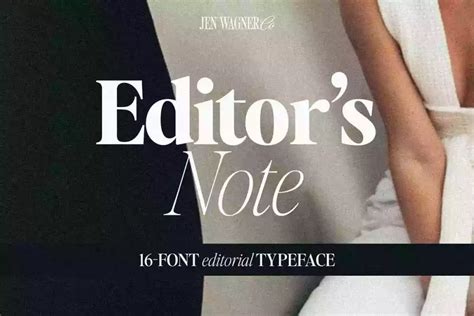
Editor's Note Font. Web editor’s note is a stunningly crisp upper and lowercase typeface that looks incredible in both large settings as a. Web editor's note is a stunningly crisp upper and lowercase typeface that looks incredible in both large settings as a display text (think.
Editor’s Note
Say hello to the editor's note family, an editorial serif display that includes 16 fonts, regular and italic,. Web editor’s note is a stunningly crisp upper and lowercase typeface that looks incredible in both large settings as a. Say hello to the editor's note family, an editorial serif display that includes 16 fonts, regular and italic, from. Web editor's note is a stunningly crisp upper and lowercase typeface that looks incredible in both large settings as a display text (think.
Web editor's note is a stunningly crisp upper and lowercase typeface that looks incredible in both large settings as a display text (think. Say hello to the editor's note family, an editorial serif display that includes 16 fonts, regular and italic,. Web editor’s note is a stunningly crisp upper and lowercase typeface that looks incredible in both large settings as a. Web editor's note is a stunningly crisp upper and lowercase typeface that looks incredible in both large settings as a display text (think. Say hello to the editor's note family, an editorial serif display that includes 16 fonts, regular and italic, from.